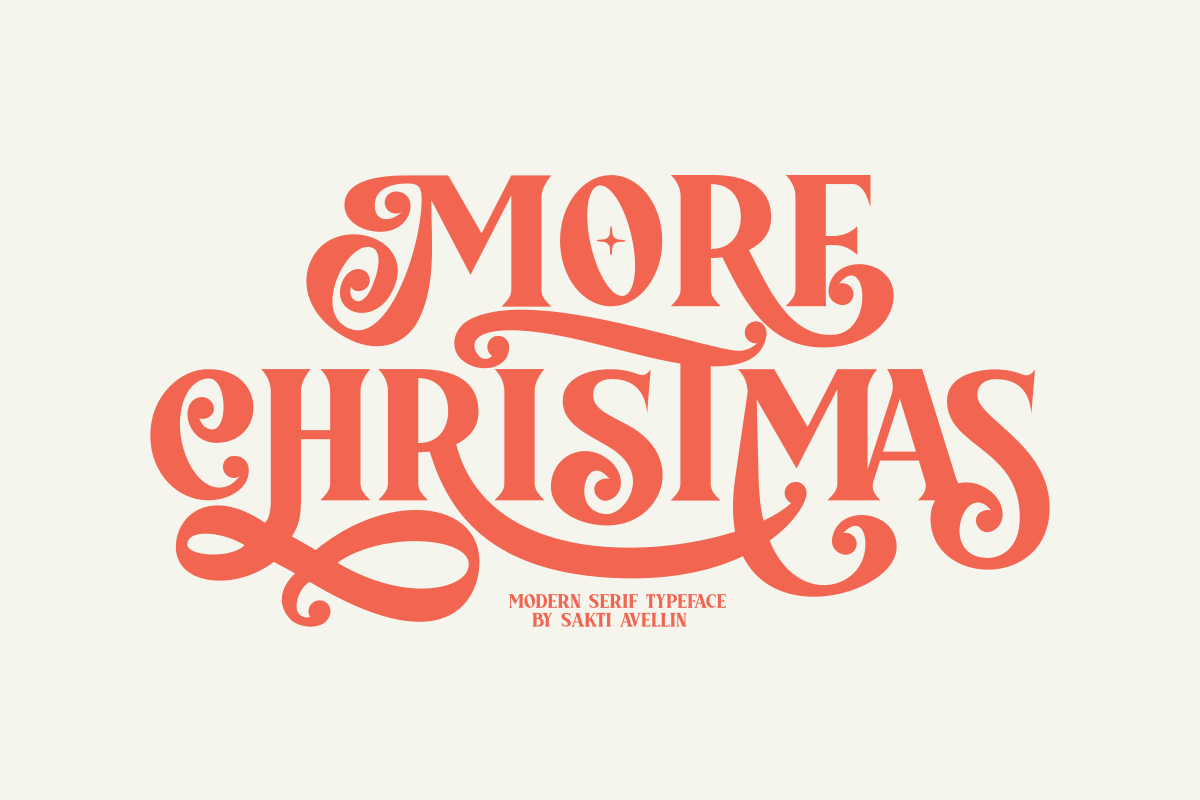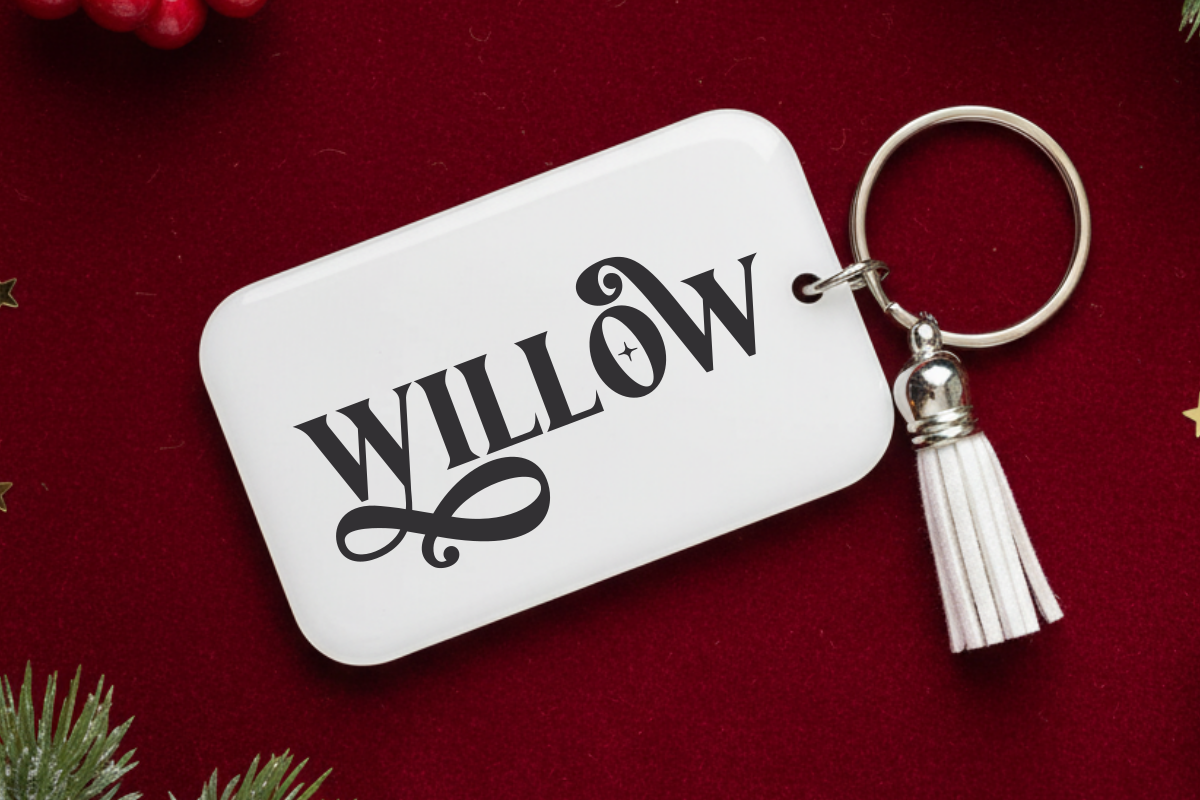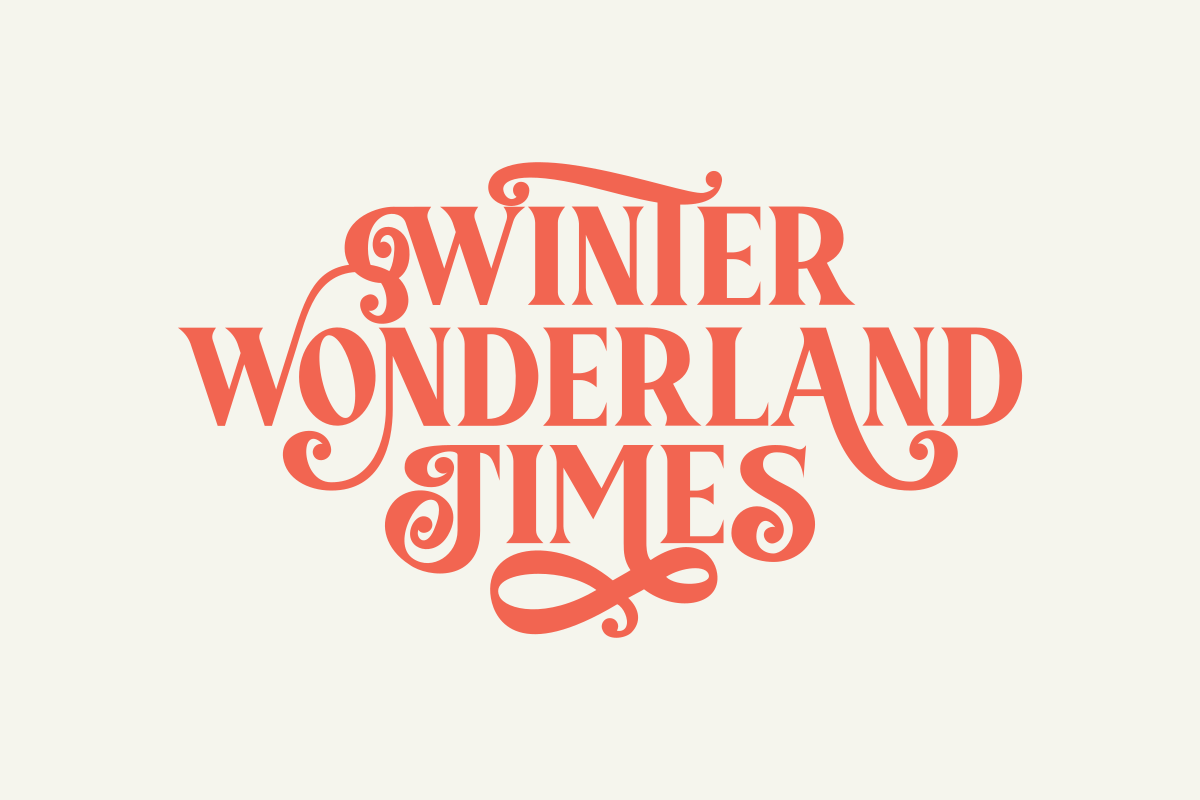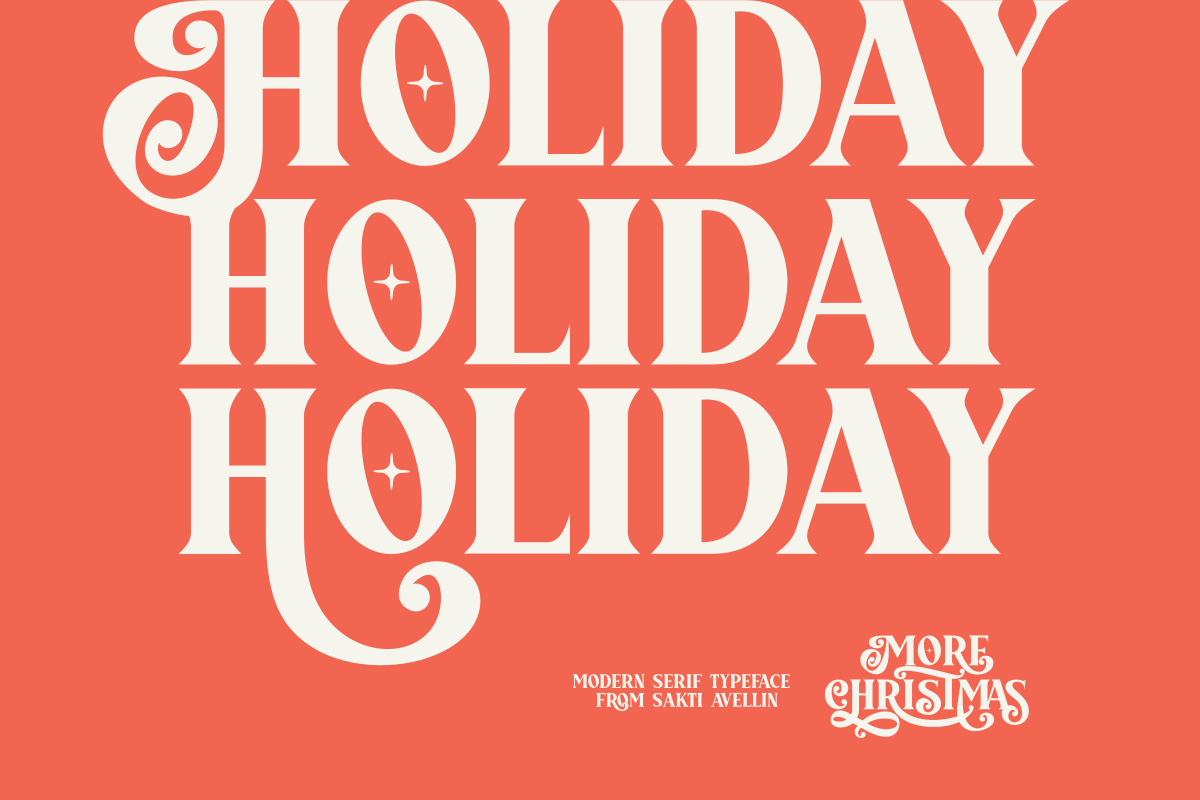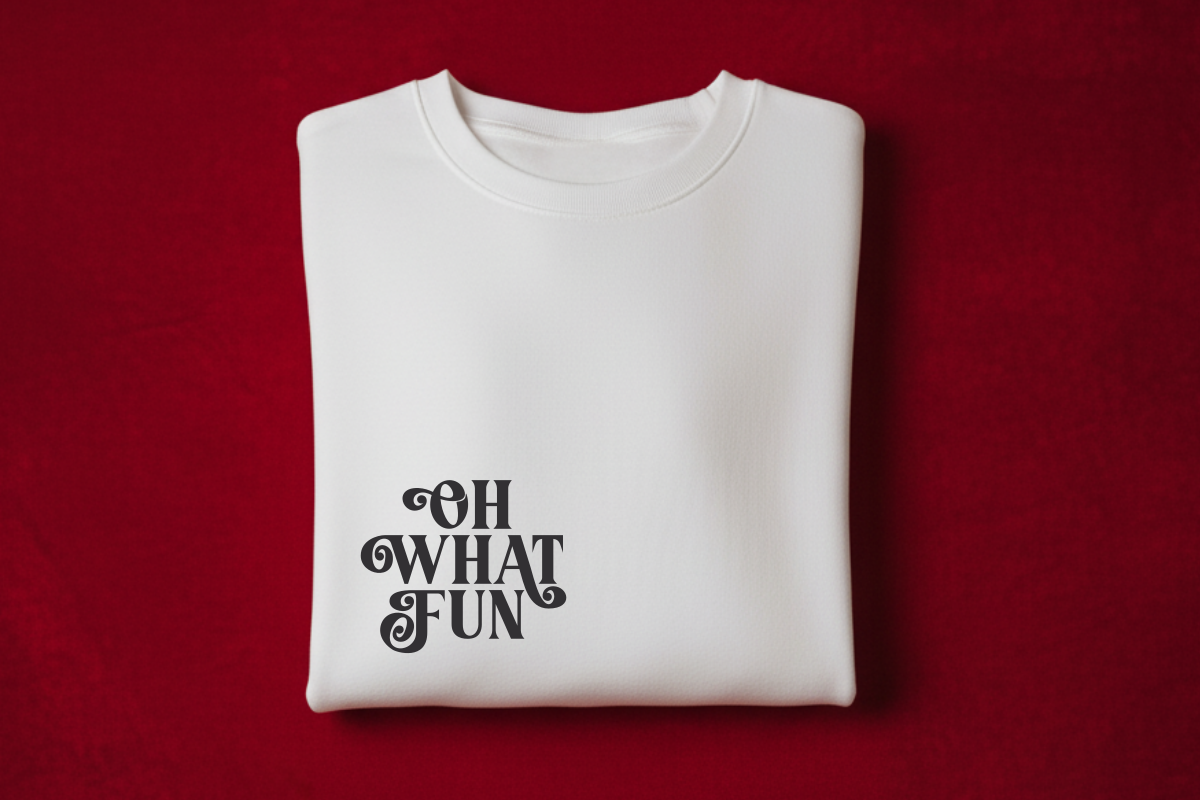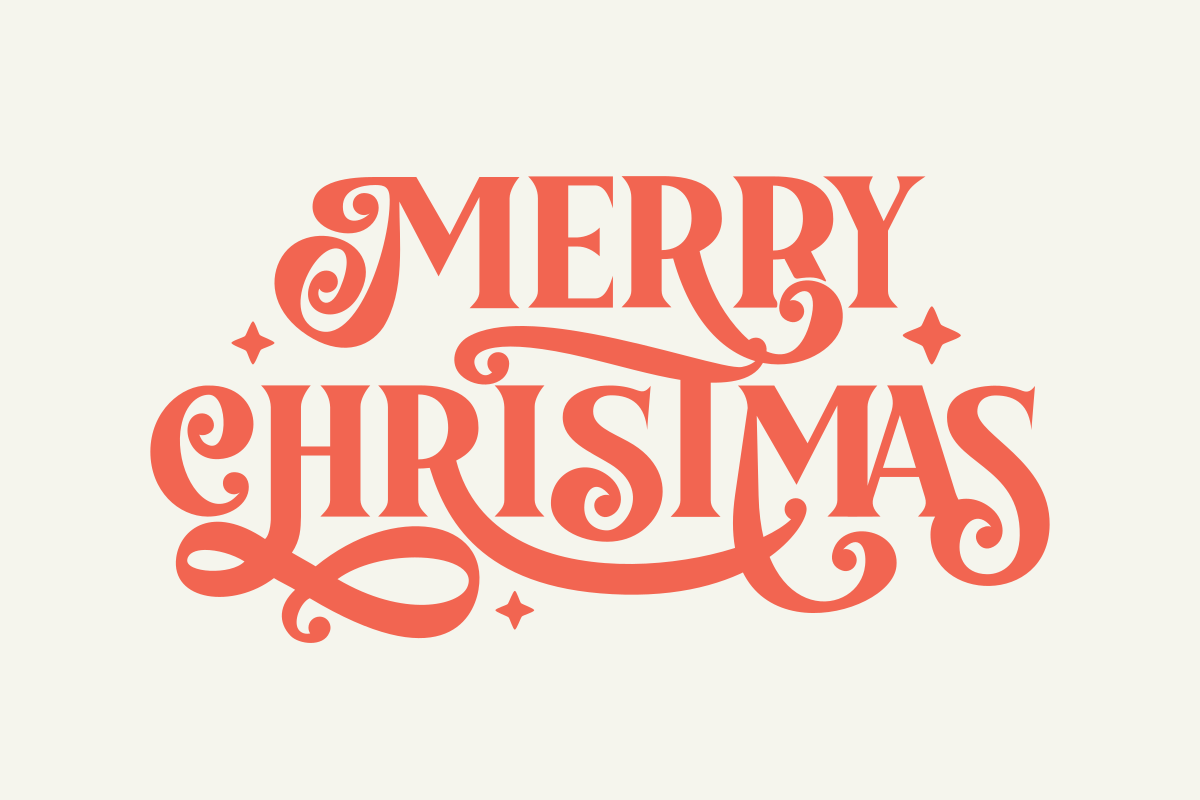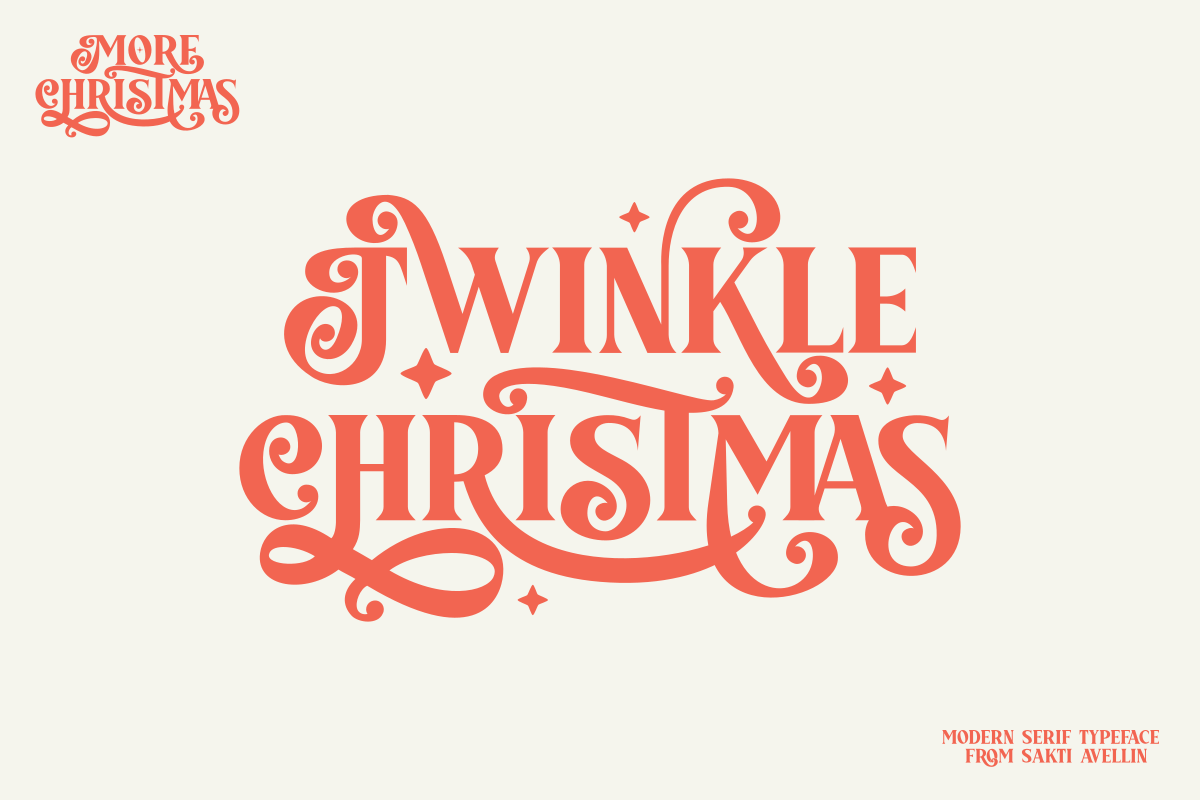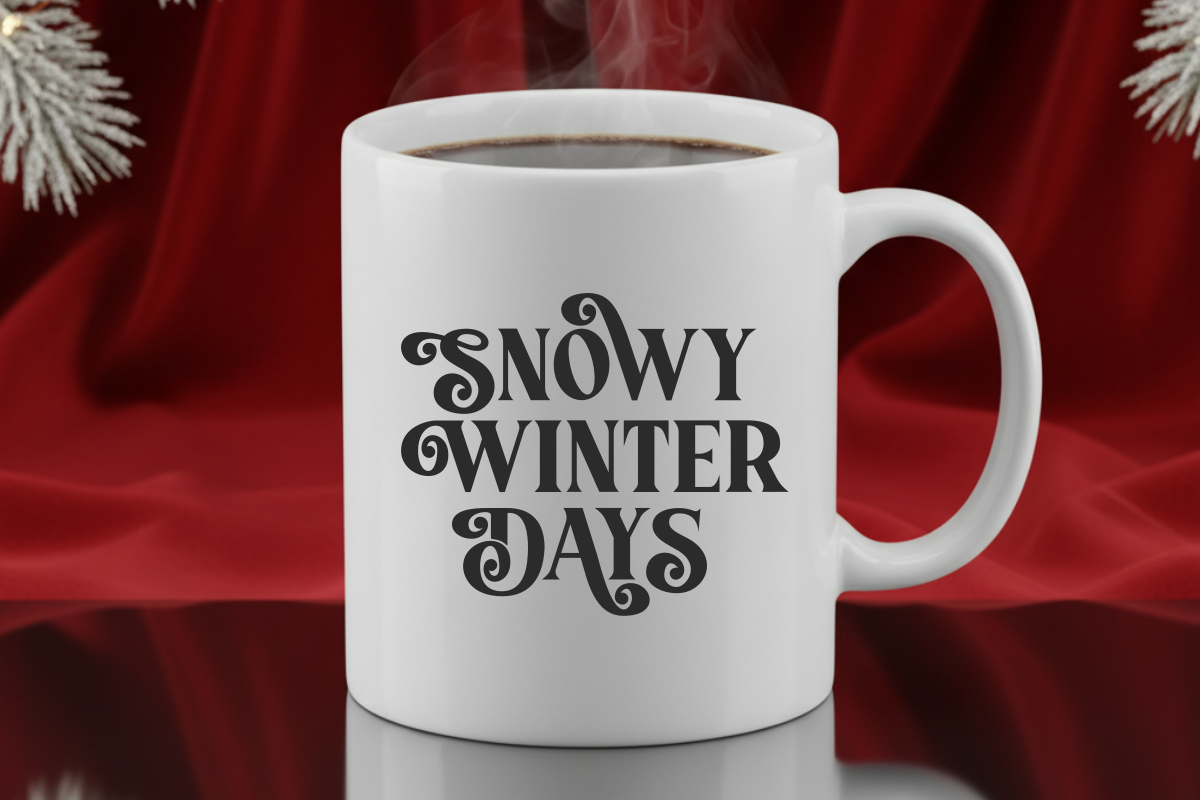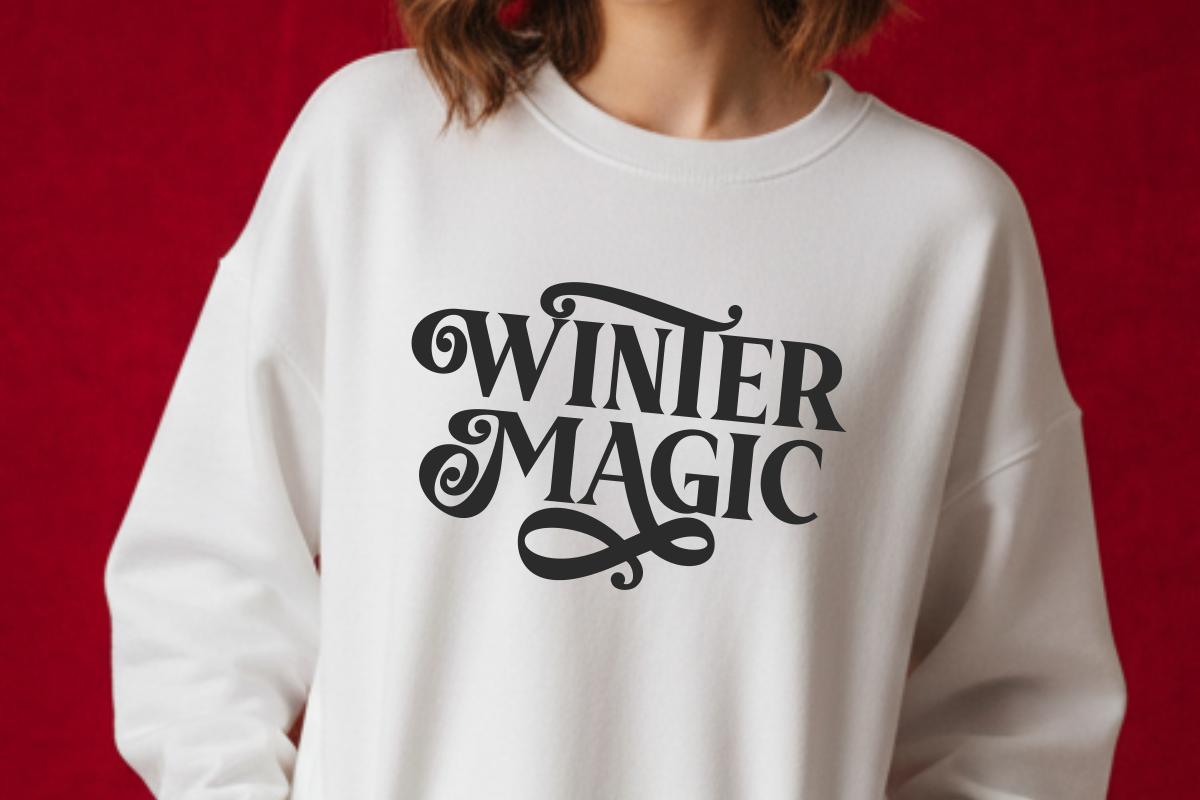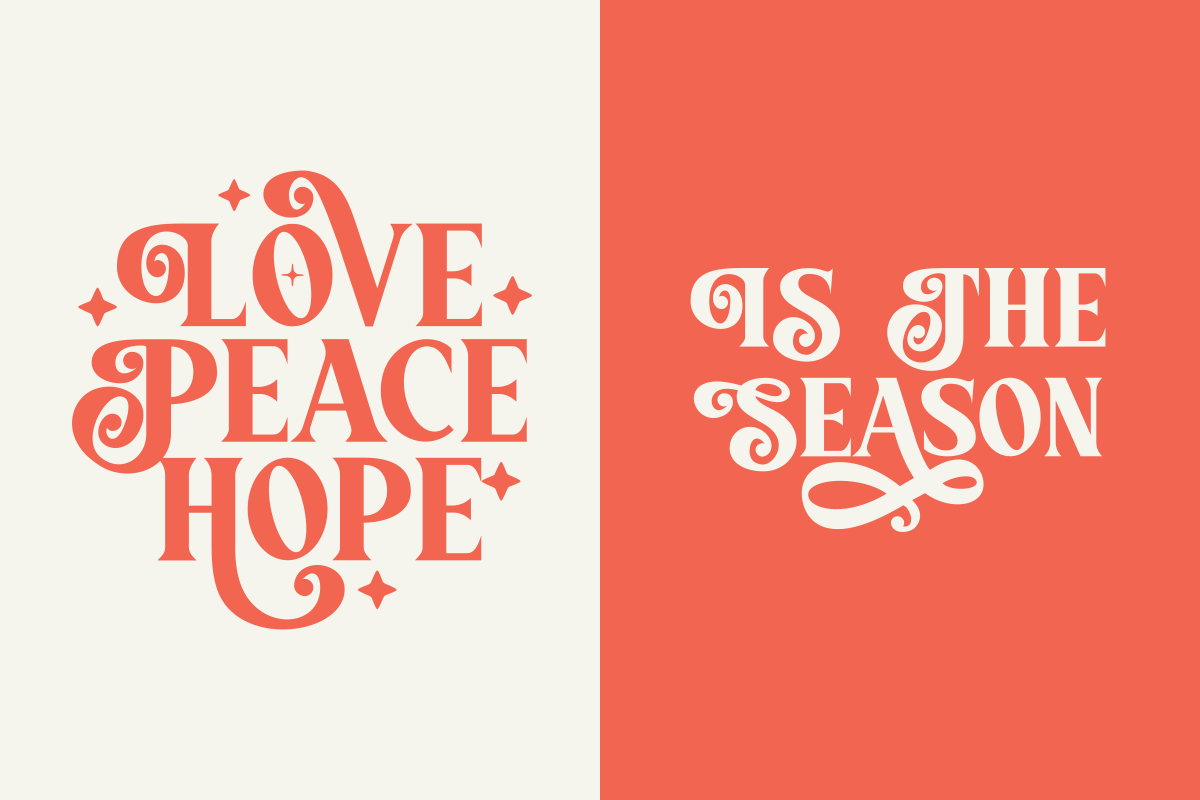
More Christmas - Modern Serif Font
More Christmas is a sophisticated and modern serif typeface designed to bring an elegant and festive touch to your high-end creative projects. This stylistic display font features graceful curves, high-contrast strokes, and beautiful flowing swashes, making it an ideal choice for luxury holiday branding, elegant wedding invitations, boutique logos, and premium Christmas stationery. Its unique blend of classic serif refinement and contemporary decorative elements ensures it stands out as a powerful editorial font for headlines and magazine layouts, perfect for designers seeking a balance of seasonal magic and timeless style. Elevate your festive designs with the luxurious spirit of More Christmas!